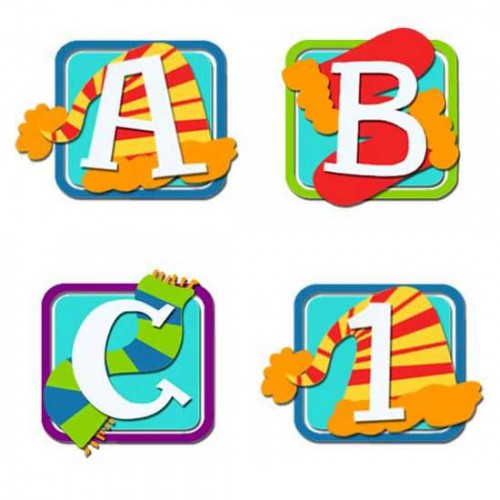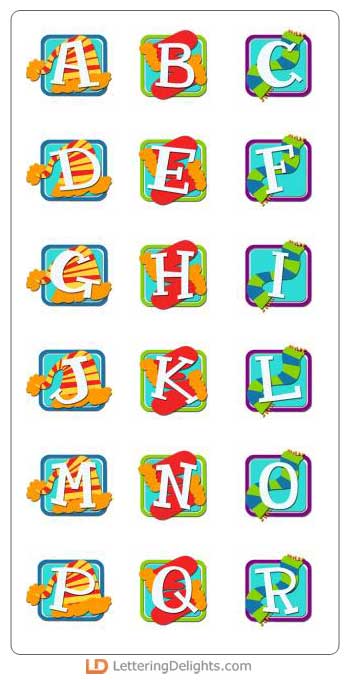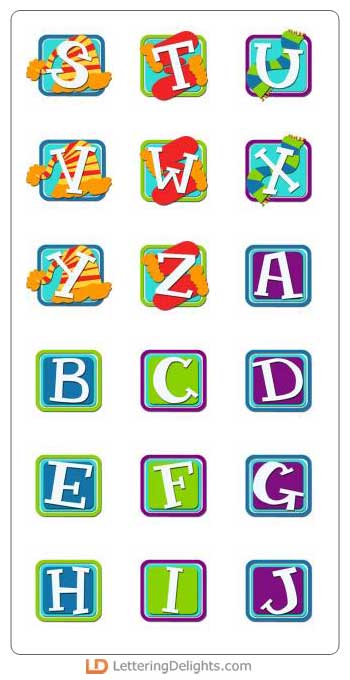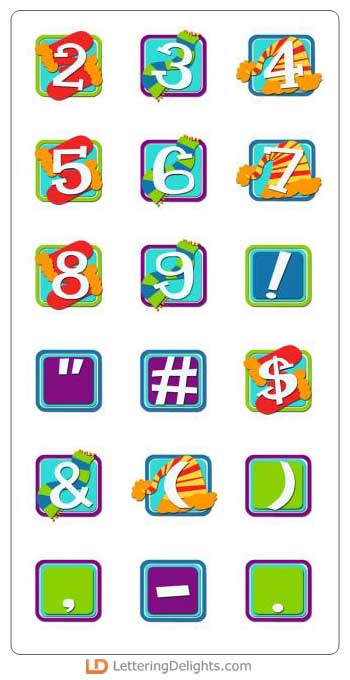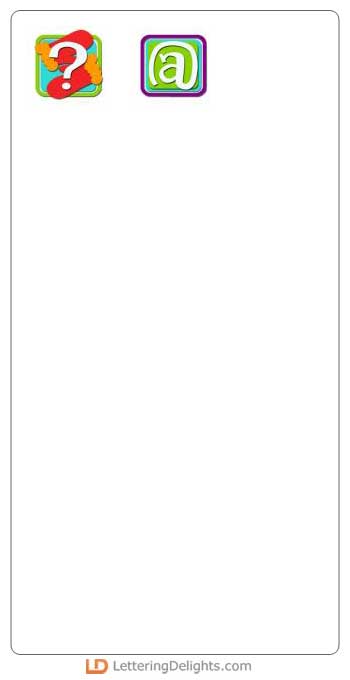
Brrrr. It's cold outside. It's time to bundle up. This cute alphabet displays various winter weather clothes. It has a matching Journaling Delight set called JD Winterwear.